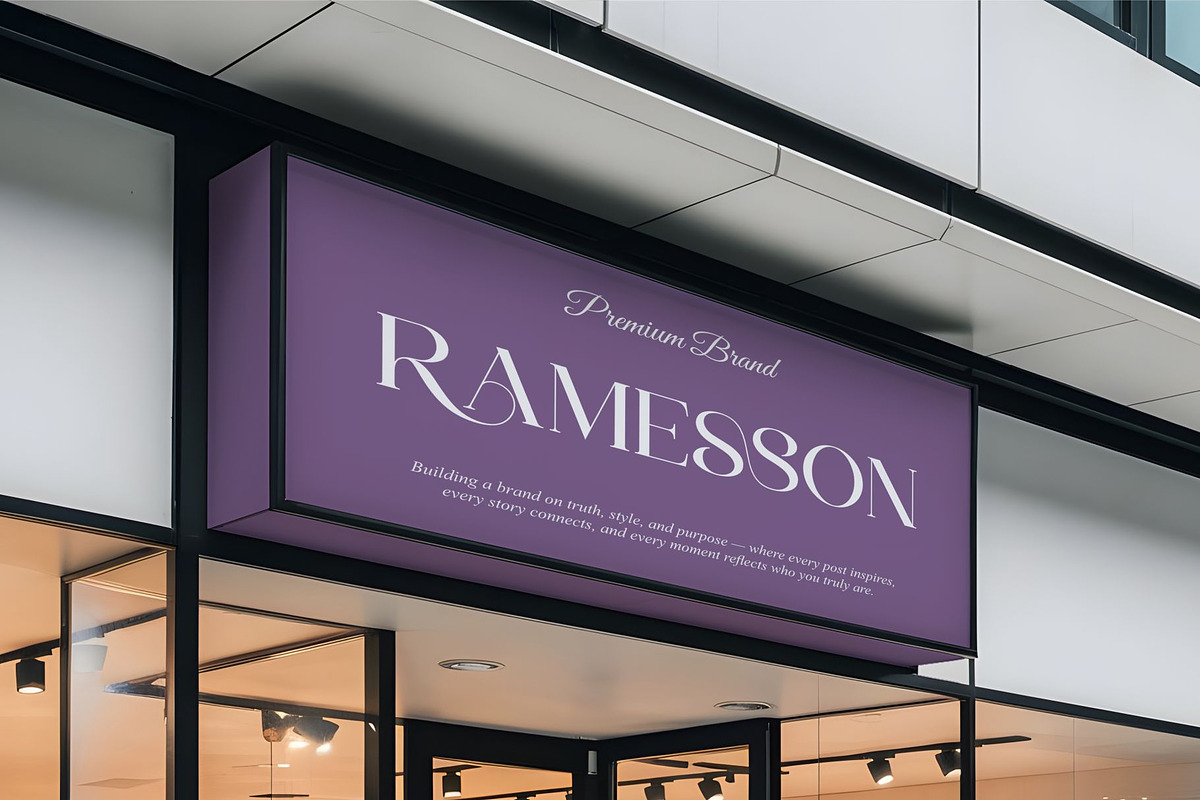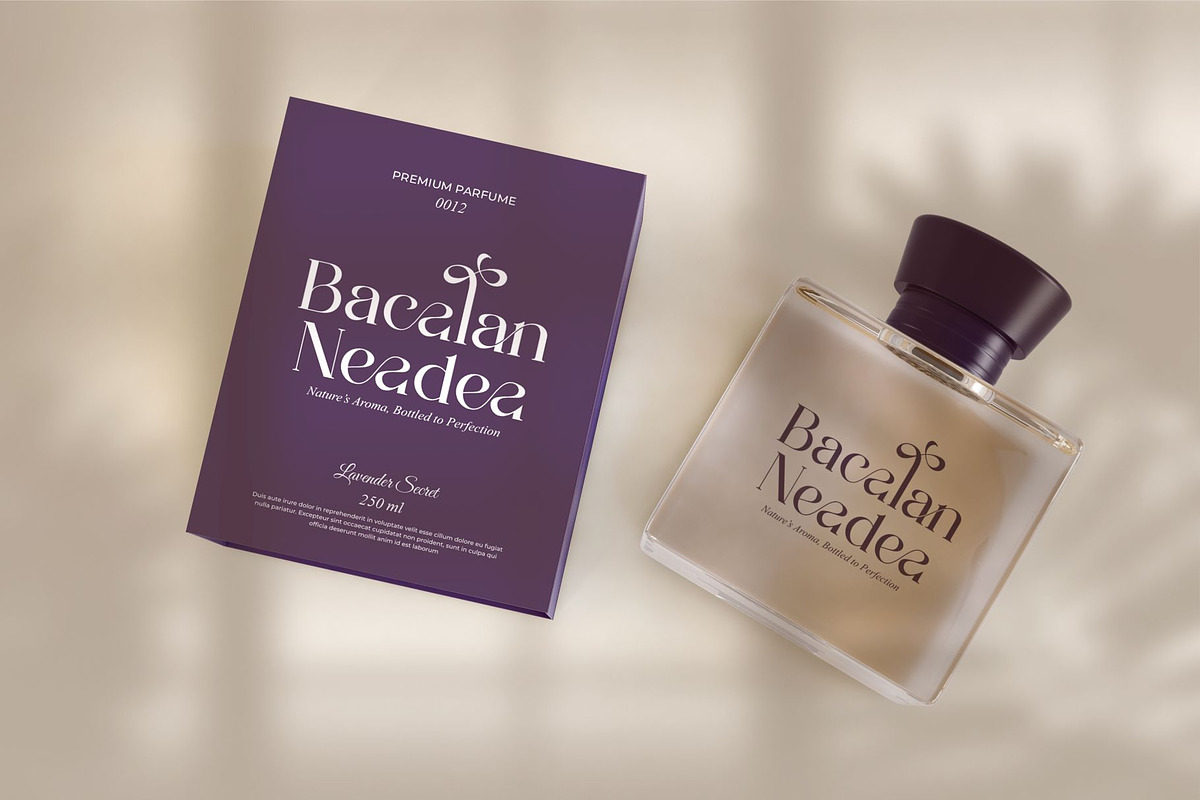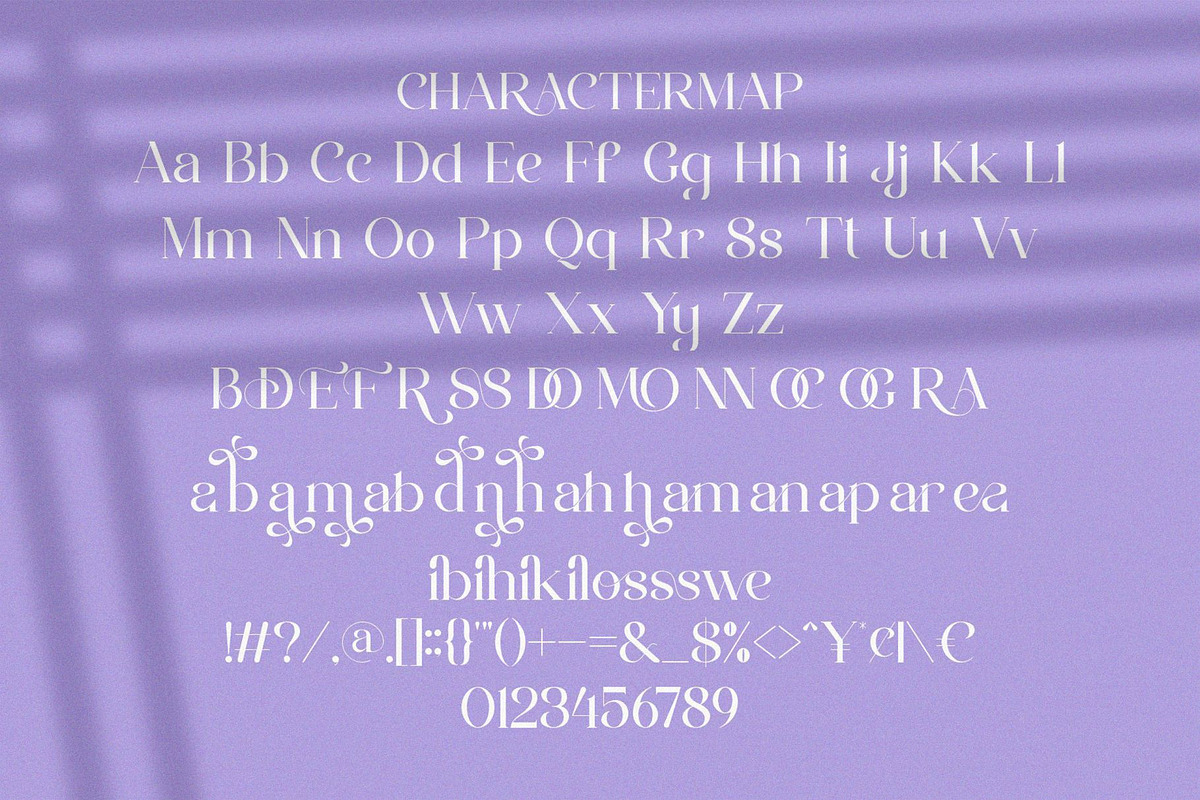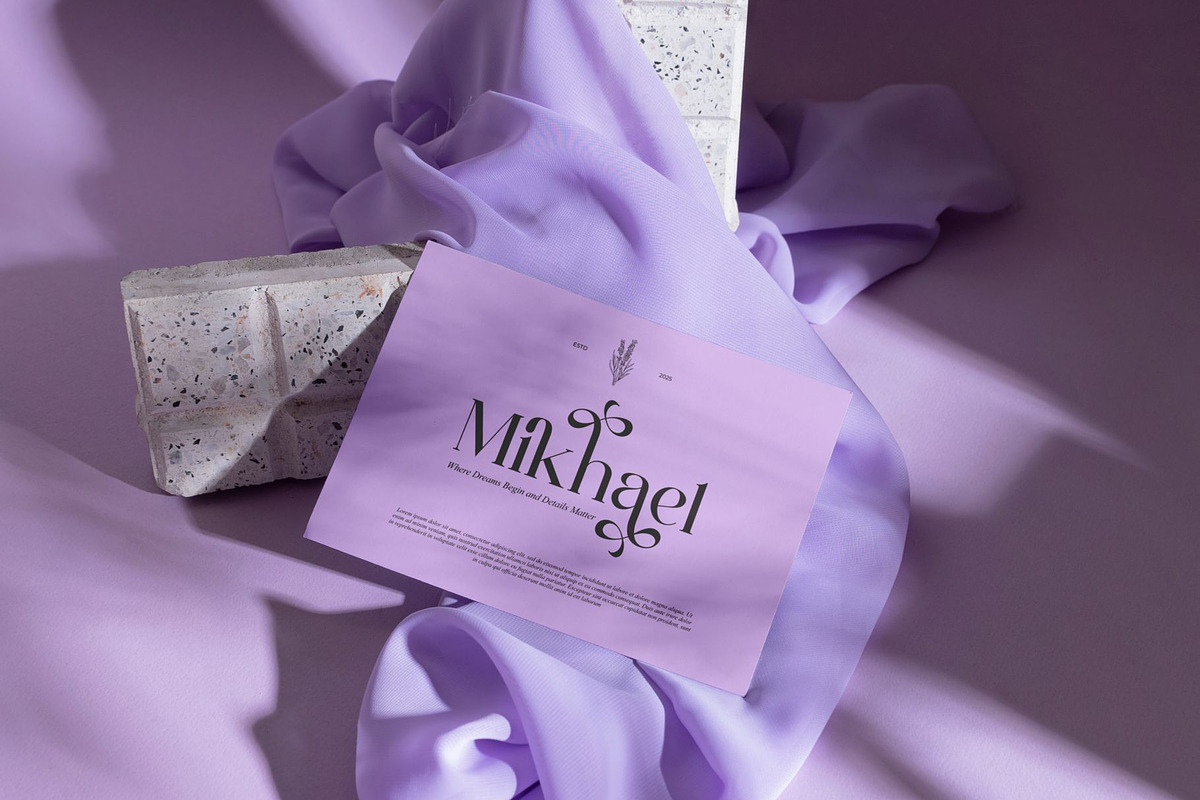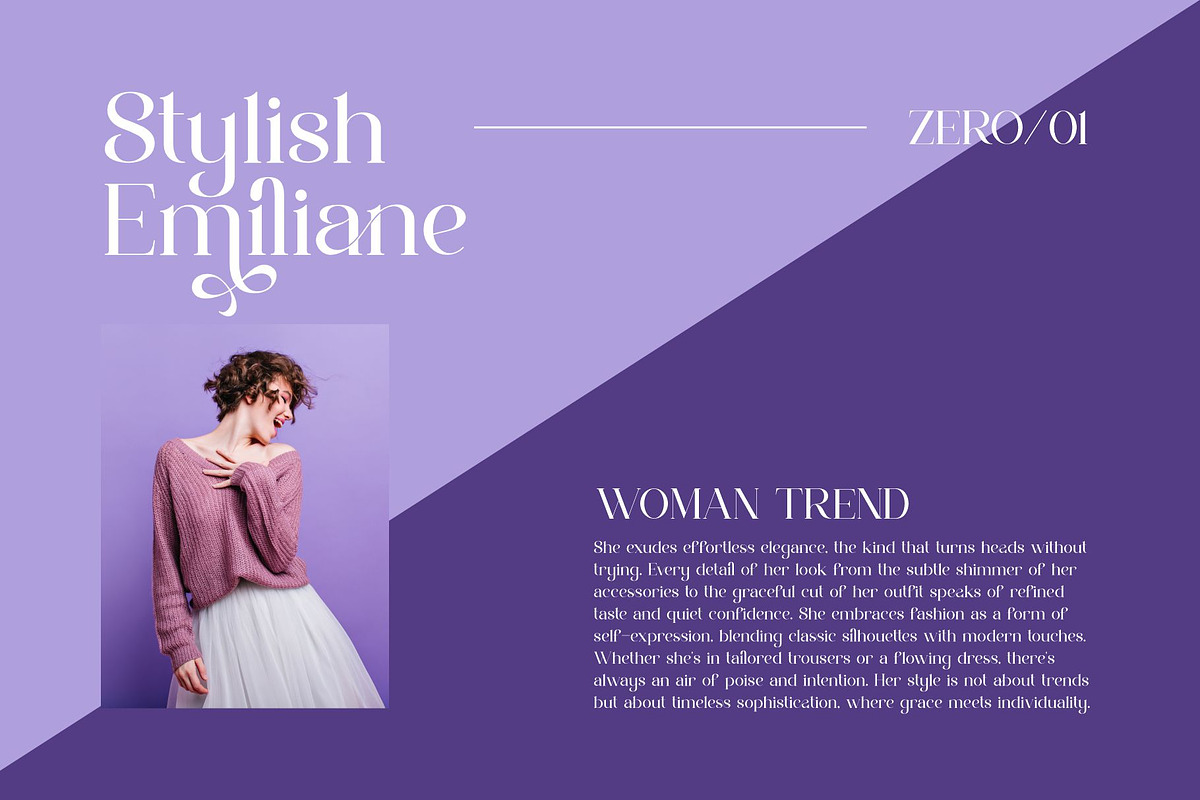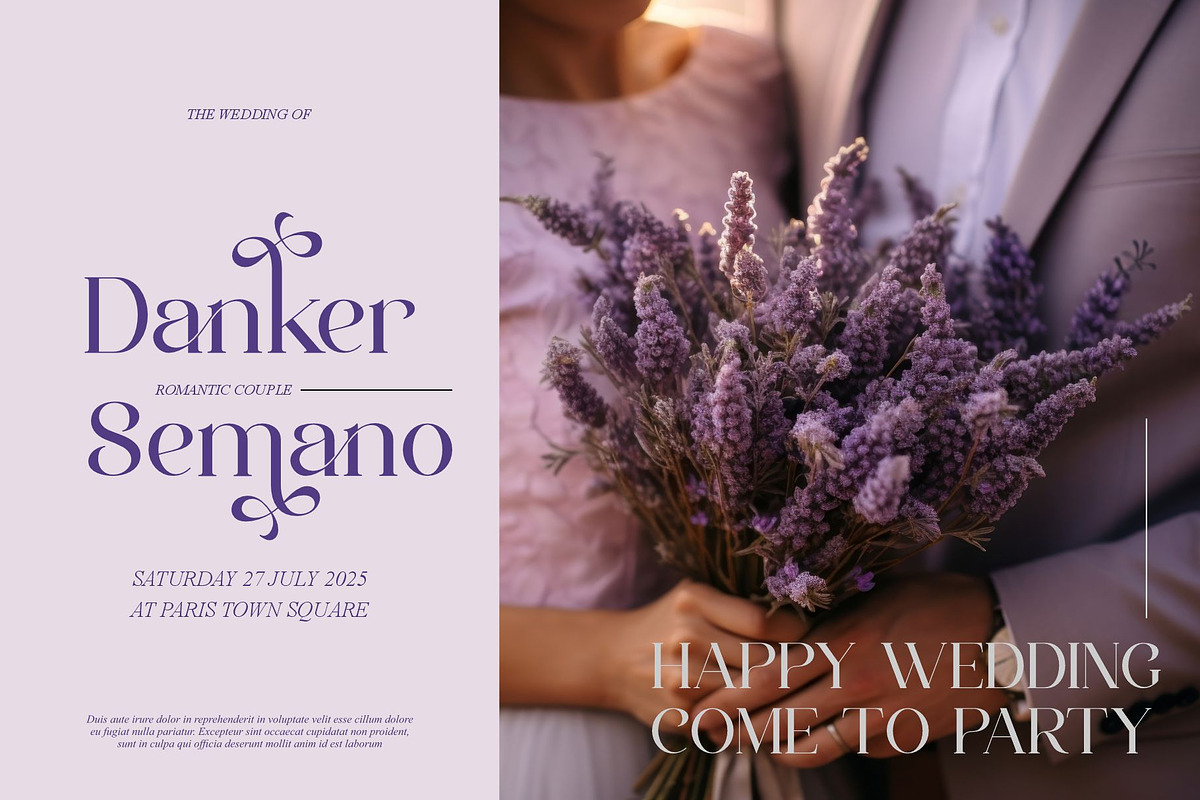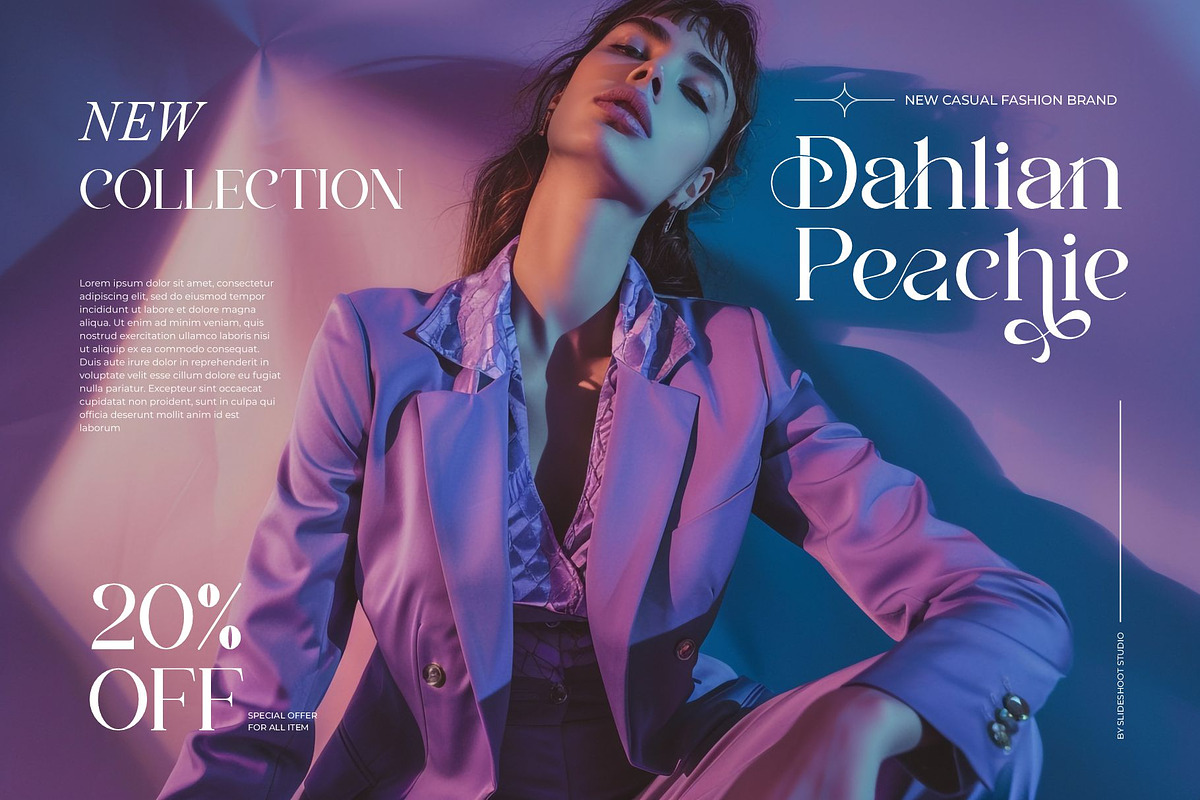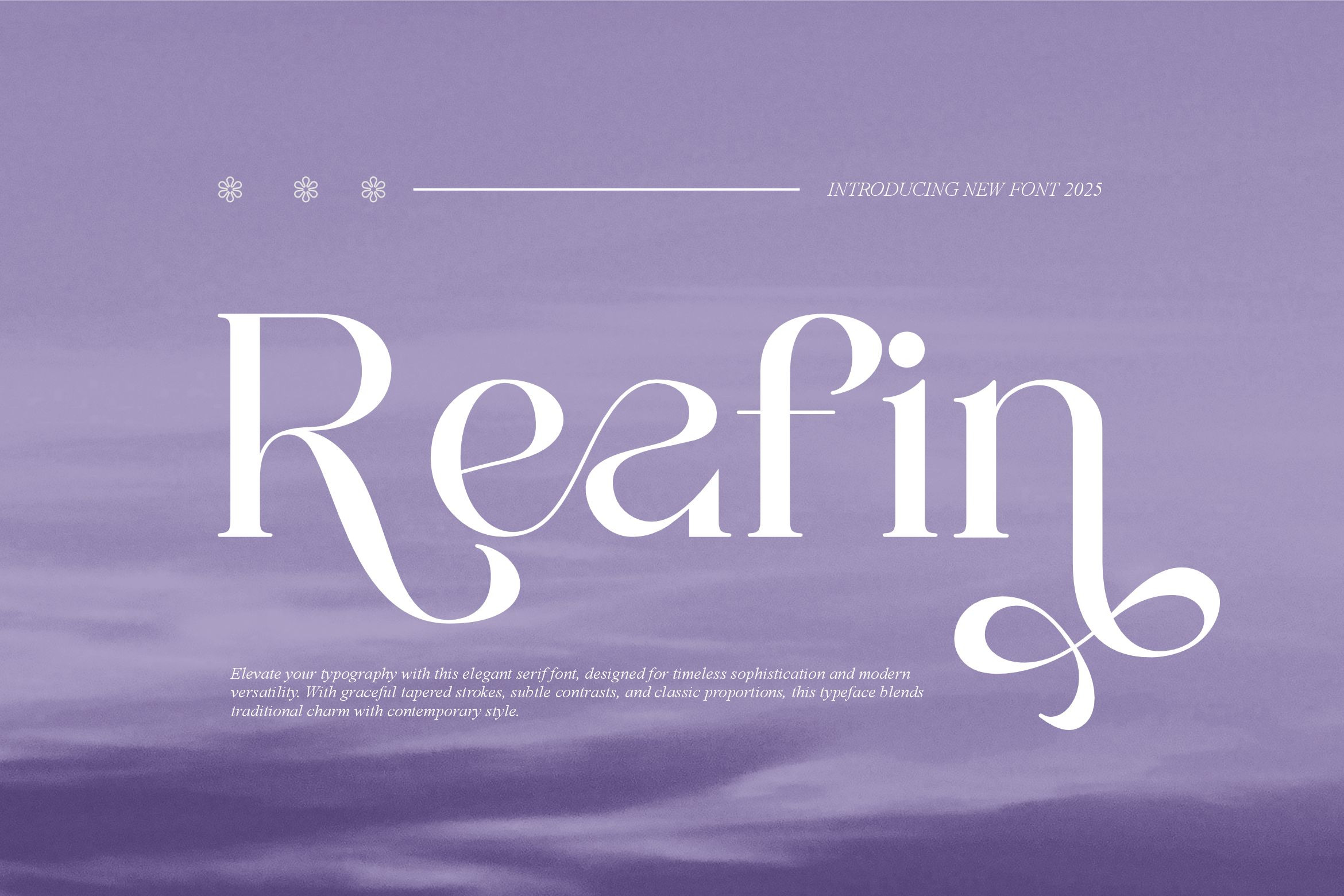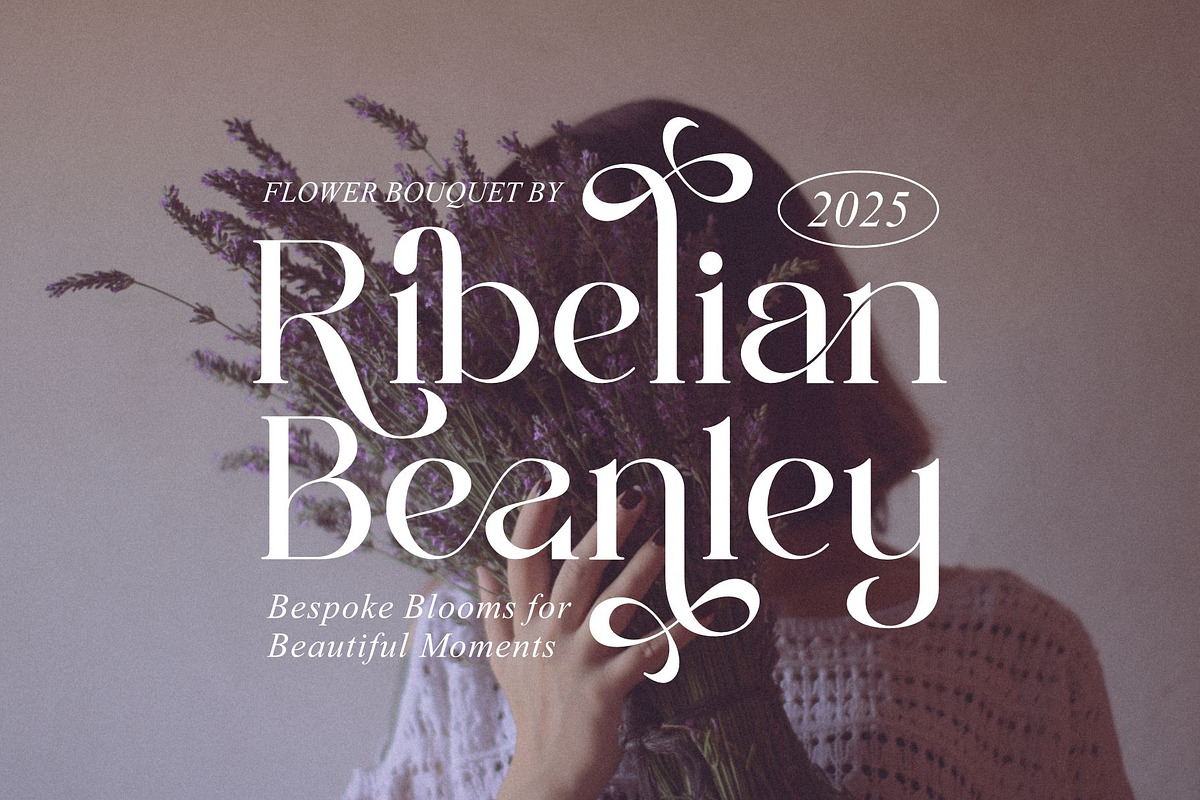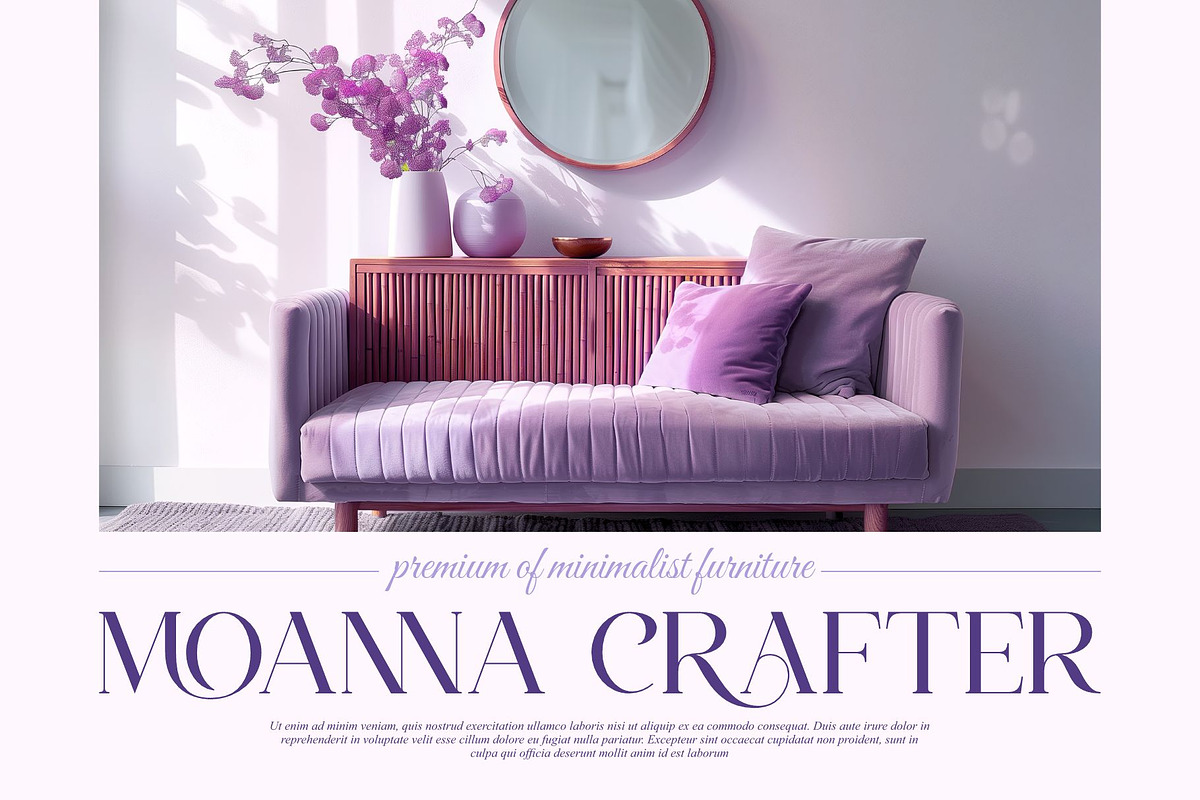
Reafin || Modern Elegant Serif Font
Reafin Serif is a modern and Elegant font type for all branding and logo designs. This modern and Elegant Serif font has a beautiful character. This font is suitable for invitation card designs, cool logos, movie titles, movie names, business cards, book titles, brand names, and various other designs. Reafin Serif is a smooth serif font that exudes sophistication and the moment. Its stylish ligatures make this font a perfect partner for any project.